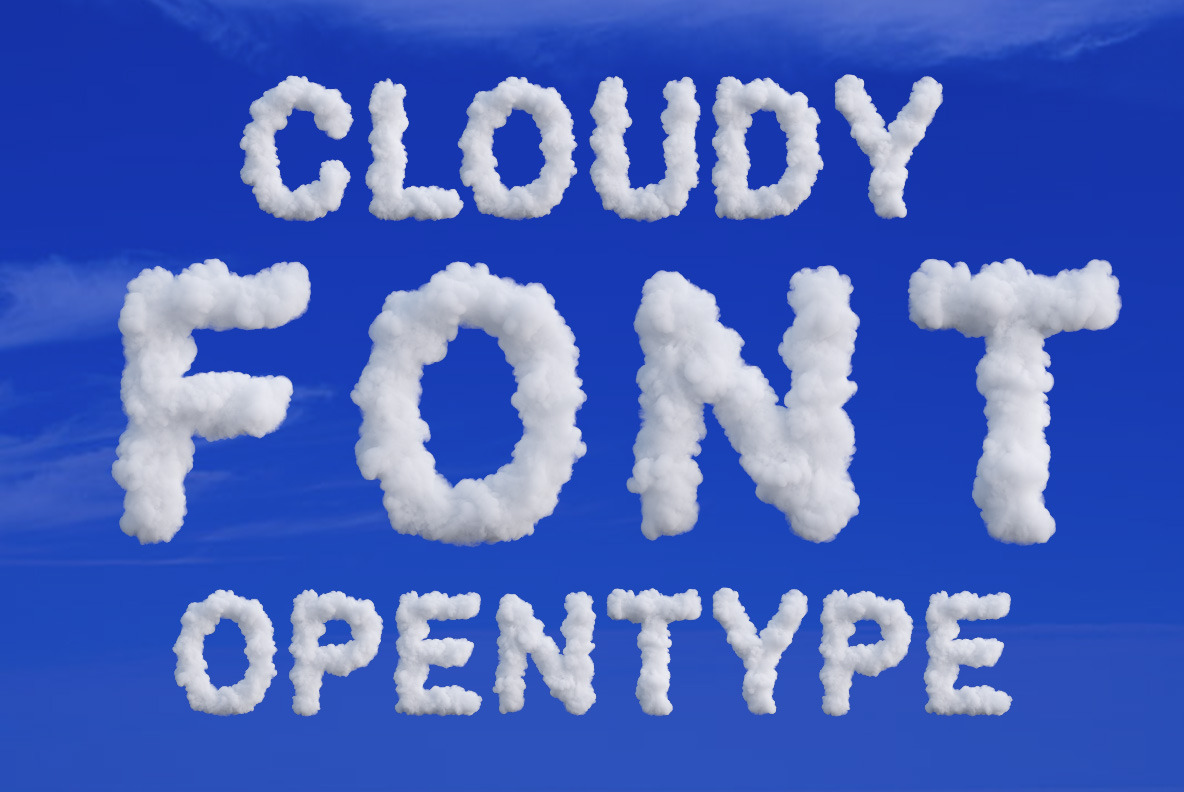
Cloudy Font
Let the Clouds Inspire You: Explore the Magic of Clouds Font Typography
Cloudy Font. A high definition OpenType-SVG font. Contains uppercase characters, numerals and basic punctuation. (Draw height roughly 800 pixels). All letters and glyphs that comprises this font you can see on the preview.
- Letters : A B C D E F H I J L L M N O P Q R S T U V W X Y Z
- Numbers : 0 1 2 3 4 5 6 7 8 9
- Others : ! ? - . '